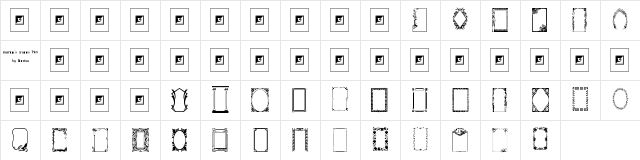
Darrians Frames Two Regular Free Font
Darrians Frames Two Regular
Complete Darrians Frames Two Regular glyph index. Displaying only characters natively supported by Darrians Frames Two Regular font.
Design Context for Darrians Frames Two
Darrians Frames Two is a composed and adaptable typeface that performs quietly and consistently across a wide range of design contexts.